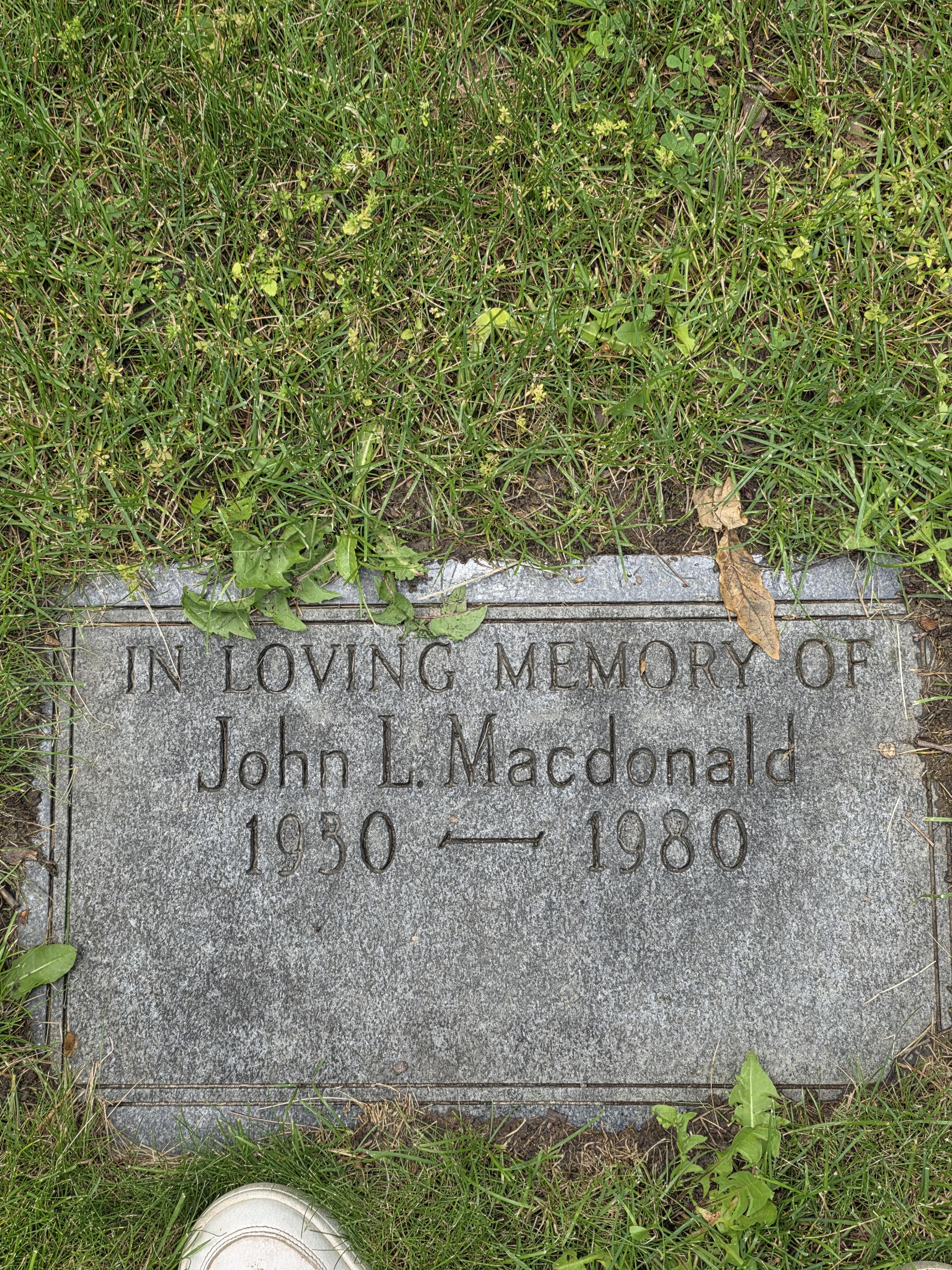
Font ID – Please.. Any ideas?
Any idea for the lower case letters?
Hello, this appears to be a mixture of various Condensed and Modified Roman stencil press alphabets—both ScotchKut and PALL—with a hand drawn sans-serif alphabet used for the lettering in the name. It looks like the lowercase may have been based on Helvetica, though somewhat condensed with elongated vertical strokes to give it the same height as the capitals.